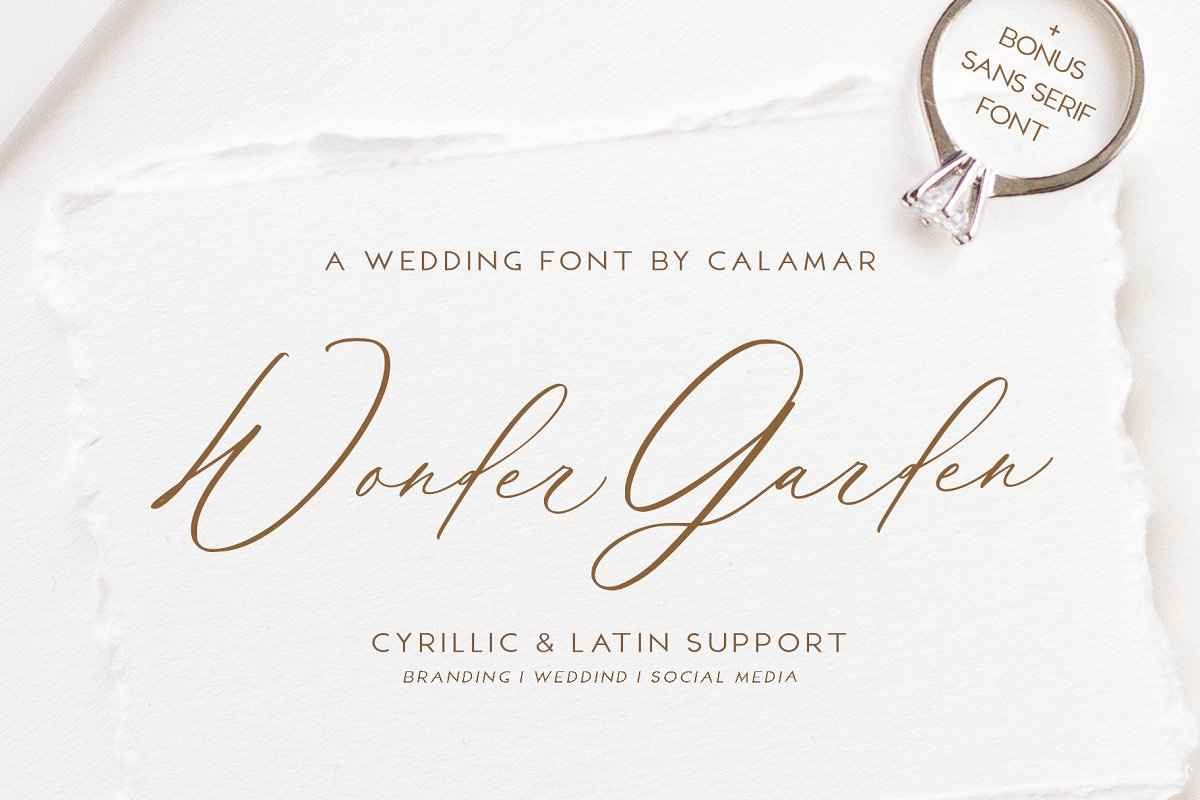
Wonder Garden | Latin&Cyrillic Font
Wonder Garden Font is perfect for botanical garden signage, nature-inspired children's books, organic gardening company branding, whimsical nursery school materials, eco-friendly product packaging, fairy tale illustration projects, environmental education programs, magical event invitations, enchanted forest-themed venues, and dreamy landscape design portfolios. This enchanting typeface excels in applications where natural wonder, magical storytelling, and botanical beauty are essential brand characteristics.
What makes Wonder Garden Font exciting is its captivating ability to transform ordinary text into magical garden experiences through organic letterforms that seem to grow naturally like flowering vines and botanical elements. The font features delicate curves and nature-inspired flourishes that create an immediate sense of enchantment and wonder, as if each word has been carefully cultivated in a secret garden. Its whimsical character instantly transports viewers to magical realms where nature and imagination intertwine, making it perfect for brands that celebrate the mystery and beauty of the natural world.
The Wonder Garden Font family typically includes Regular and Bold weights, often accompanied by decorative alternates with enhanced botanical details and nature-inspired ornamental elements. Many versions feature special ligatures that create flowing vine-like connections, complementary leaf and flower dingbats, and decorative borders that frame text like garden pathways. Some collections include seasonal variations and matching illustration sets that complete the magical garden aesthetic for comprehensive storytelling applications.
Whether you're creating brand identities for environmental organizations, designing educational materials about nature and gardening, or developing content that celebrates the magic of outdoor exploration, Wonder Garden Font Free Download offers the enchanting botanical character that resonates with audiences who find wonder in natural beauty. Its dreamy personality makes it ideal for brands focused on nurturing curiosity about the natural world and inspiring environmental stewardship. The font's ability to convey both magic and genuine respect for nature makes it particularly valuable for educational institutions, environmental nonprofits, and children's brands seeking to foster deep connections with the natural world through imaginative, wonder-filled experiences.